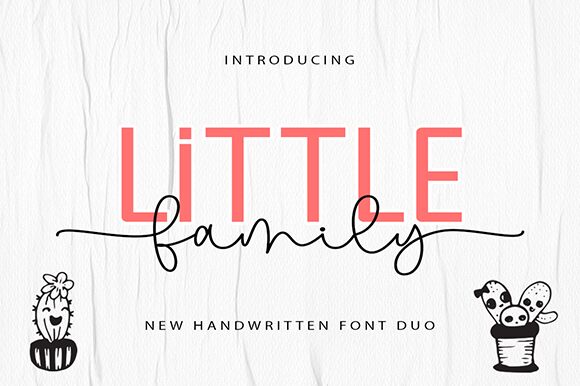
Little Family
Little Family font is a display font designed by Wahyu Studio with quirky characters for your creative projects. It combines geometry with a modern and condensed style which sets it apart from other typefaces. Characters appear distinct, with an overall fun and unique vibe that matches the variety of potential contemporary applications.